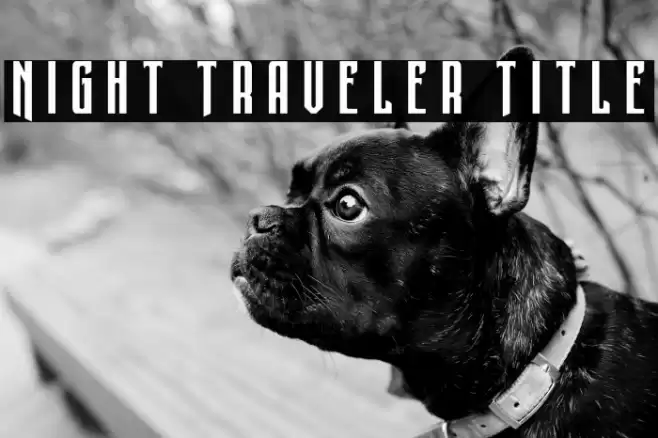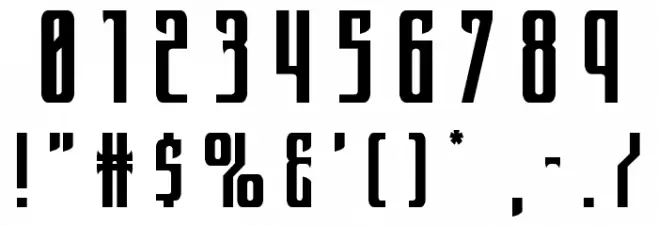
Night Traveler Title Font
Night Traveler Title Description
This font features a bold and striking design with a modern, geometric aesthetic. The characters are tall and narrow, with sharp angles and clean lines that create a sense of strength and precision. The uppercase letters are particularly prominent, with a uniform height that gives the font a cohesive and structured appearance. The numbers and special characters maintain the same bold style, ensuring consistency across all text elements. This font's unique design makes it ideal for projects that require a strong visual impact.
A bold, geometric font with tall, narrow characters and sharp angles from Uncategorized fonts.
- Proposed Projects: Ideal for use in branding, posters, headlines, and any design that requires a strong, modern aesthetic.